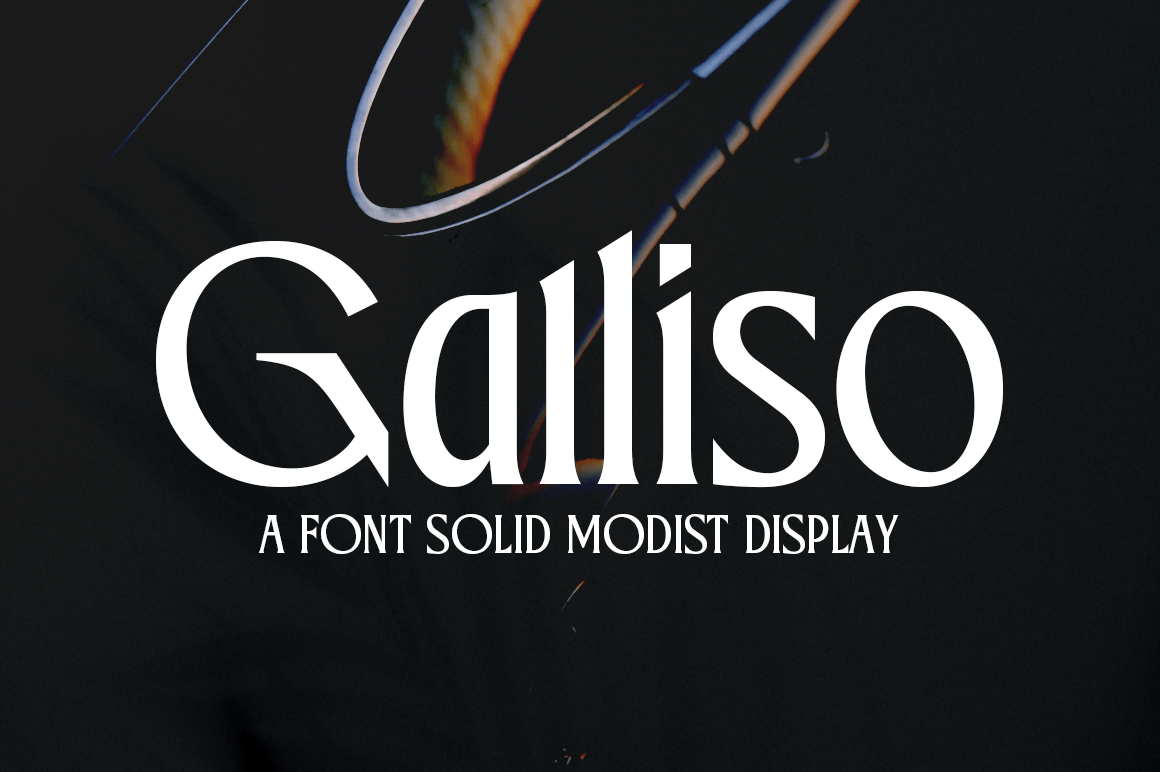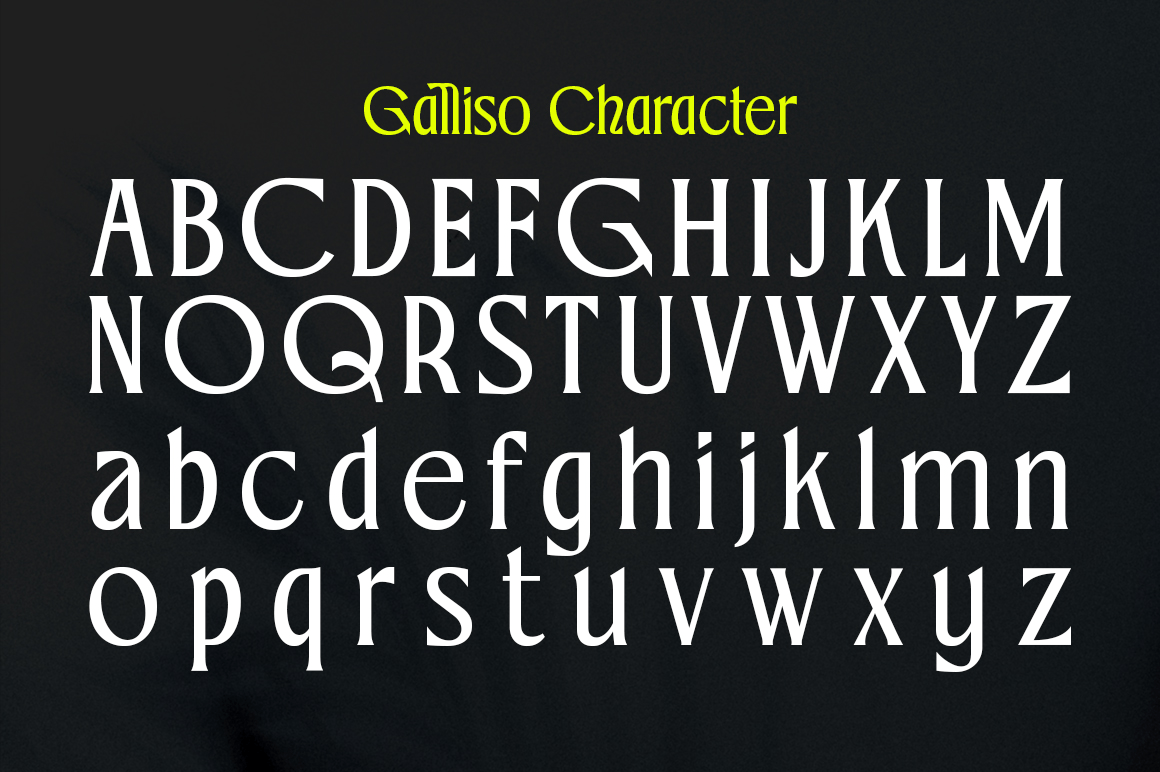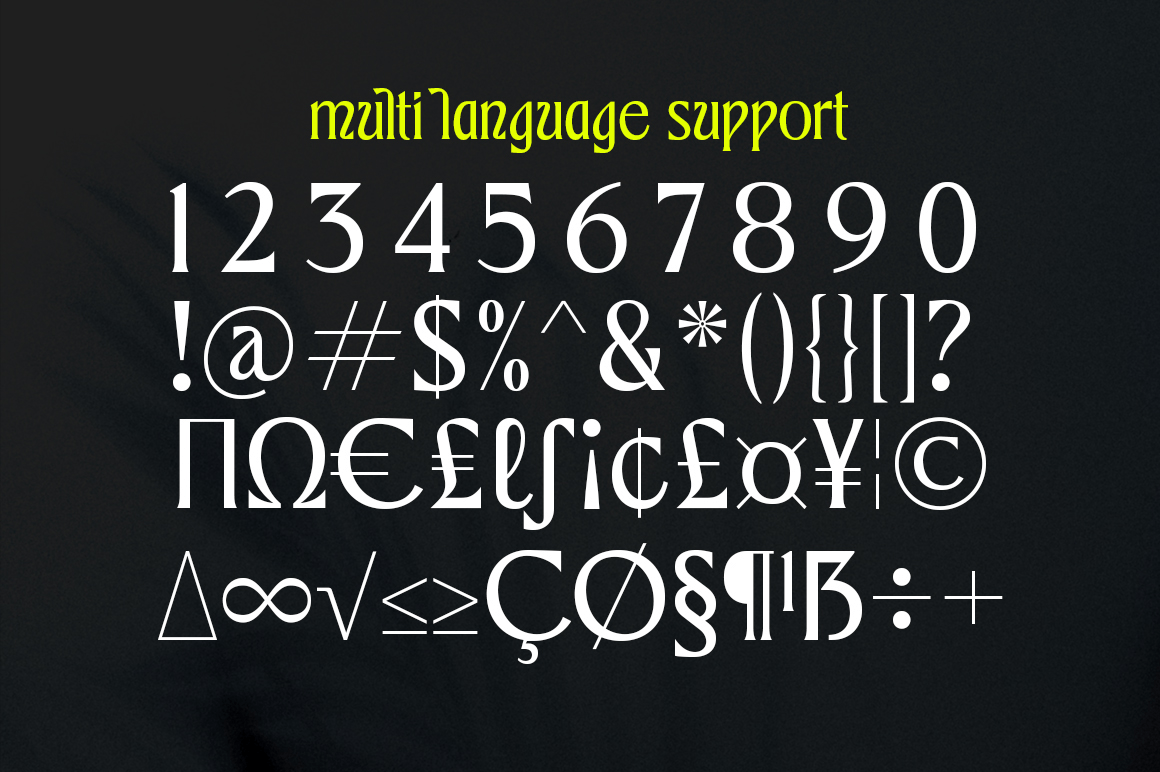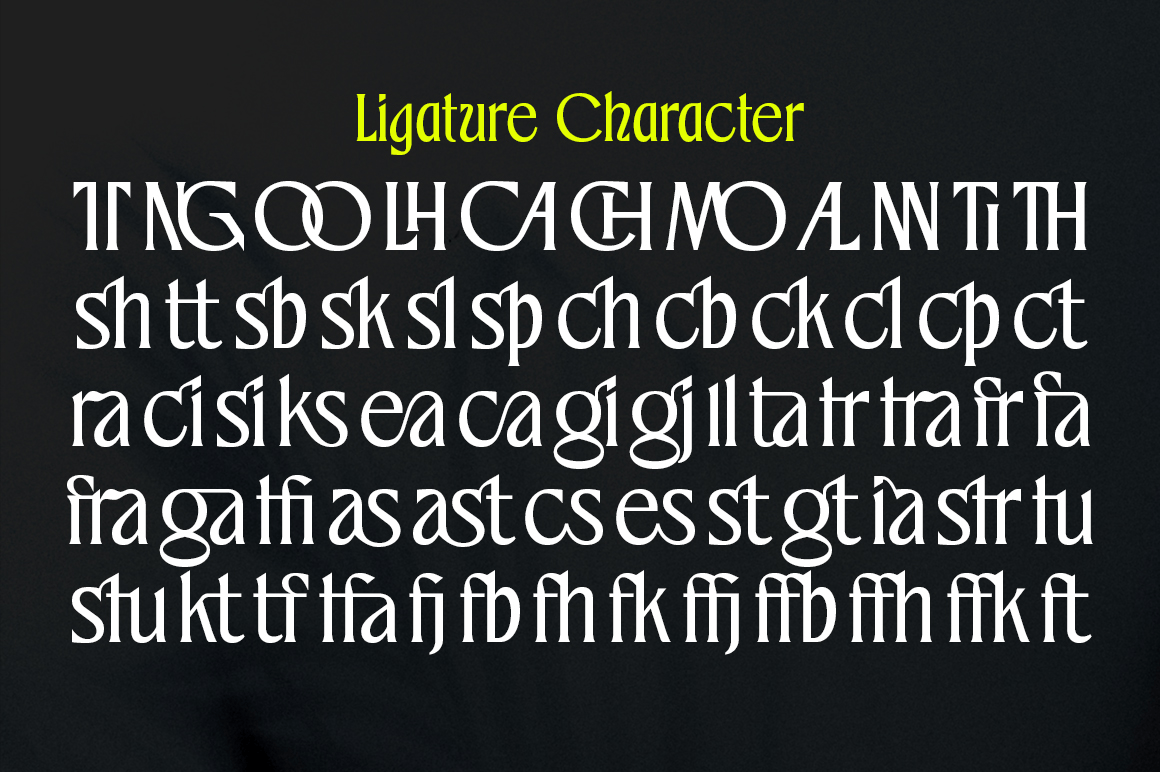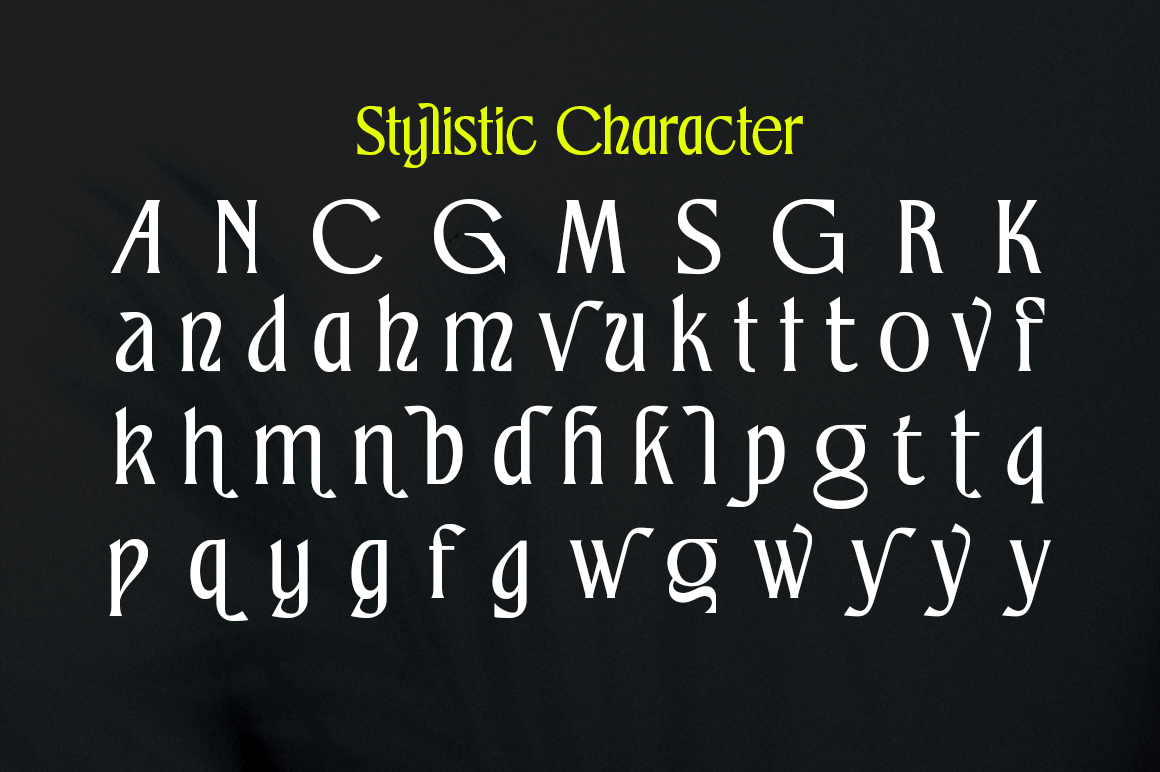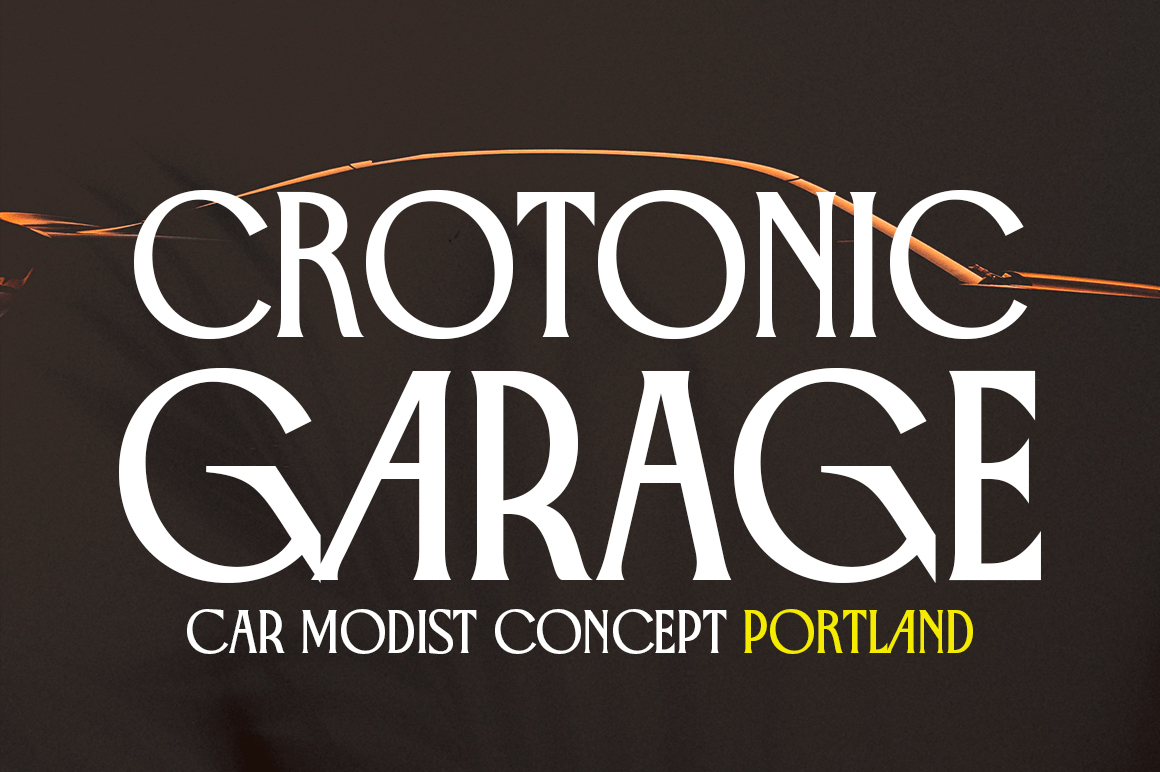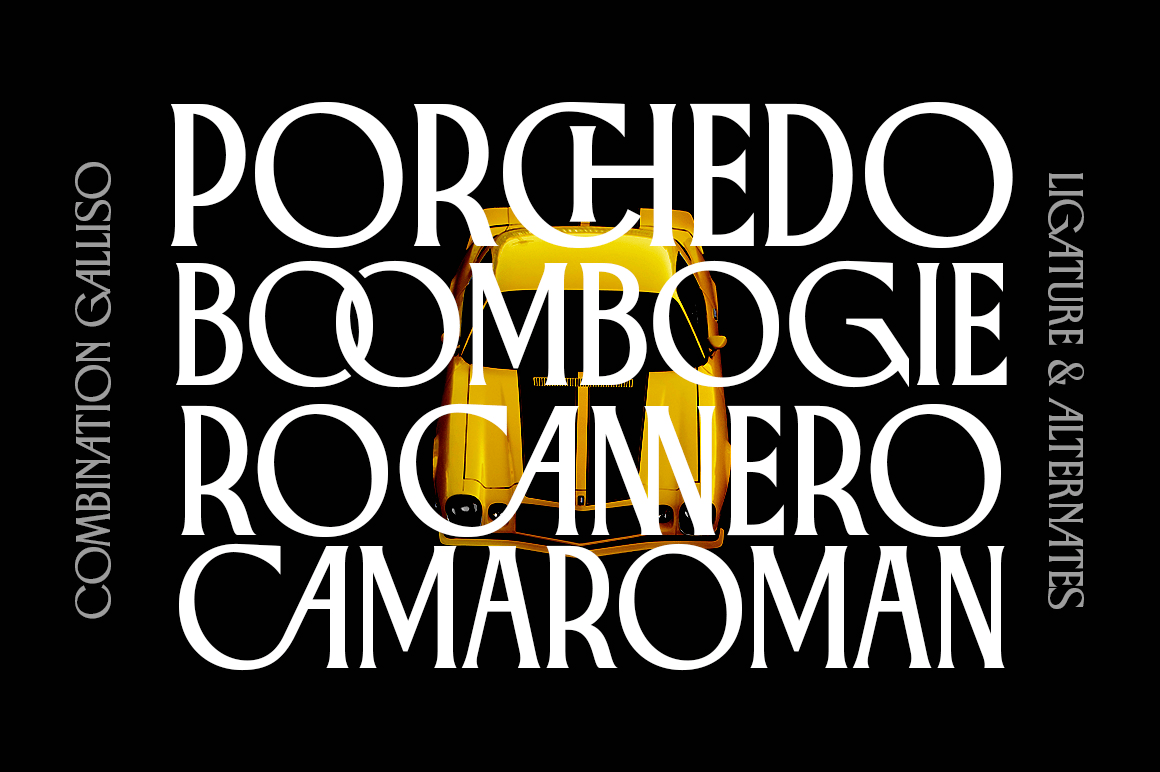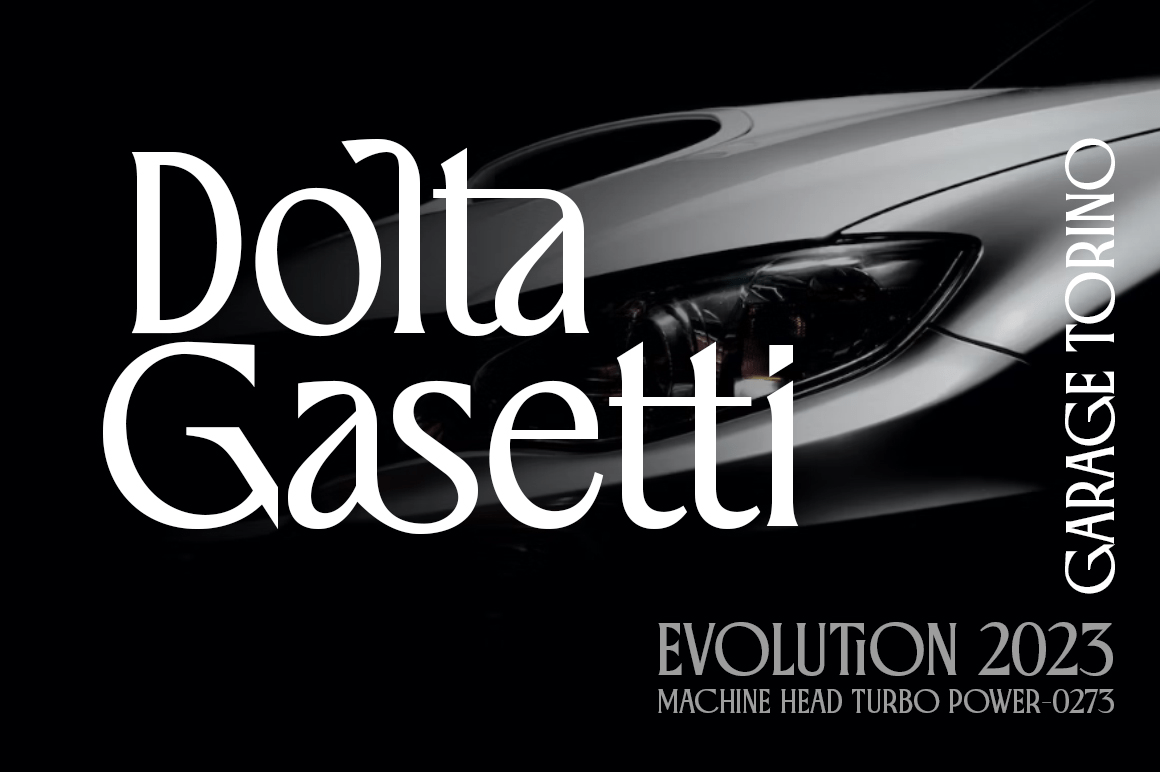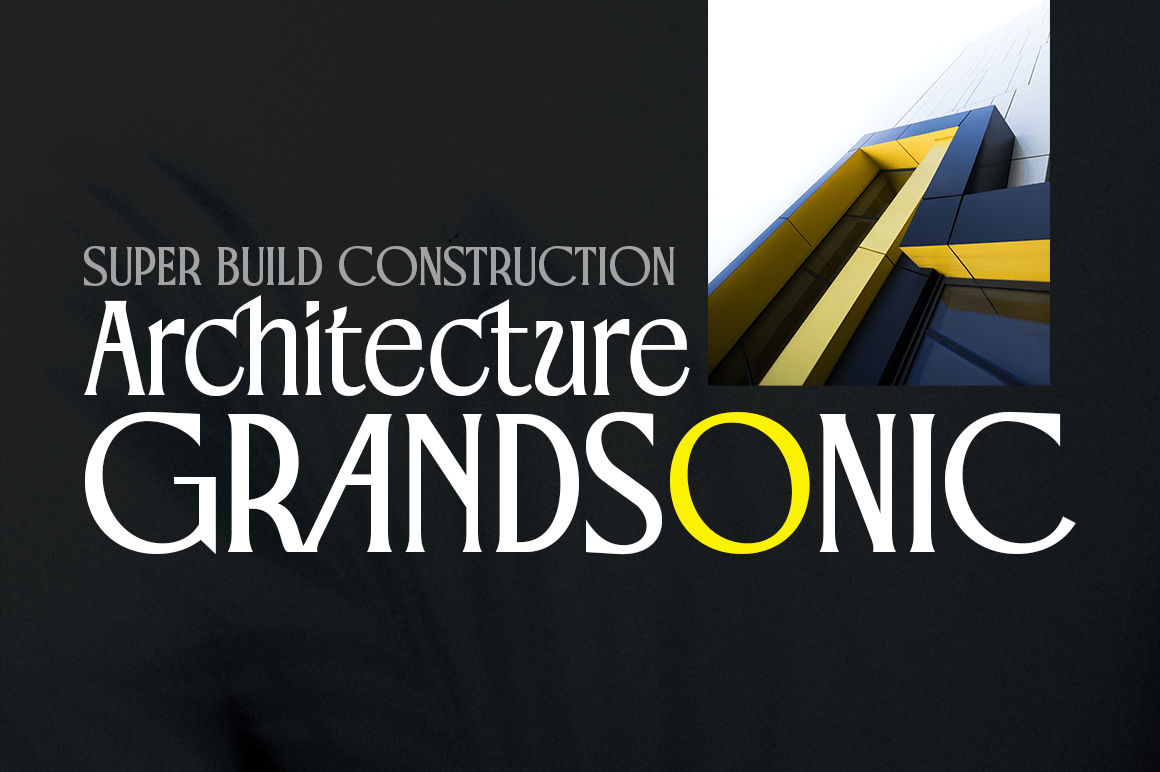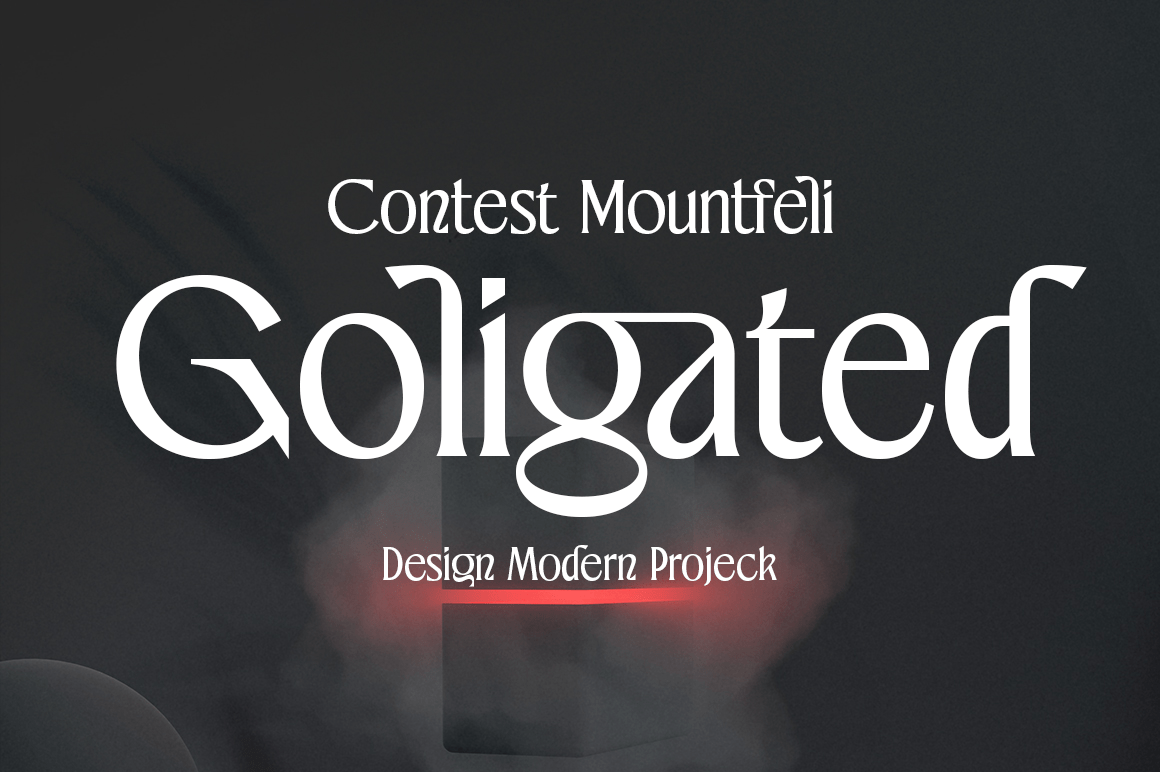
Galliso
Font Family by Dora Typefoundry
Galliso is a serif font with a classic yet modern style with subtle curves and a beautiful binding, consisting of regular and italic versions with four types. allowing for a very sophisticated and contemporary typographical approach and the unique look of this font also features ligatures and multi-language support. This font is perfectly made to apply especially to logos, and many other formal forms Galliso provides a distinct, creative, and expressive message for branding, advertising, packaging, headlines, magazines, websites and more.
Features:
• All Caps Font with different uppercase and lowercase
• Number & Symbol
• Supported Languages
• Alternates and Ligatures